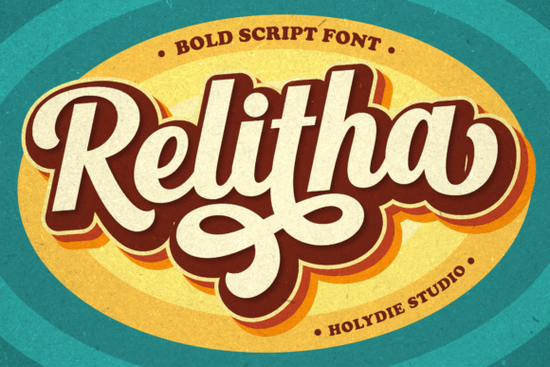
If you're working on a design that calls for bold, nostalgic vibes think 70s album covers, 80s diner signage, or groovy t-shirt prints you’ll want a typeface that captures that era without looking dated. That’s where Relitha Font comes in. It blends retro letterforms with confident, modern weight, making it ideal for projects that need personality and punch. Whether you’re designing logos, packaging, posters, or merch, Relitha delivers that vintage charm with clean execution.
What sets Relitha apart is how it balances authenticity with usability. Inspired by typography from the 1970s and 80s, it features slightly rounded terminals, subtle flares, and a sturdy structure that reads well even at smaller sizes. But its real strength lies in its versatility it doesn’t just look retro; it works across today’s most common creative formats, from digital mockups to screen-printed apparel.
Why designers love using Relitha for branding and merch
For small businesses and print-on-demand sellers, choosing a font that stands out but still feels familiar is key. Relitha hits that sweet spot. Its bold strokes and distinctive letter shapes make logos memorable, while its consistent rhythm keeps text readable on product labels or social media graphics.
Where Relitha really shines
This font isn’t just for throwback designs it’s practical for real-world applications:
- T-shirt and hoodie prints: Bold enough to read from a distance, with character details that hold up under screen printing.
- Branding for cafes, bars, or record stores: Evokes warmth and nostalgia without feeling kitschy.
- Event posters and flyers: Perfect for music festivals, retro nights, or vintage markets.
- Packaging for artisanal goods: Adds handmade charm to labels for coffee, hot sauce, or candles.
Unlike overly decorative script fonts such as those inspired by franchises like Star Wars Relitha maintains legibility while still expressing mood. And compared to outline-heavy options like Jersey Outline, it offers solid impact without relying on gimmicks.
How to get the most out of Relitha
Since Relitha includes extended glyphs, take a few minutes to explore its full character set before finalizing your design. Try swapping standard letters for alternates to give words unique rhythm especially useful for short phrases like brand names or taglines.
Also, pay attention to spacing. Retro fonts often have tighter letterfit, so you might need to adjust tracking slightly when using it in all-caps headlines. A little breathing room can prevent visual crowding while preserving the font’s energetic feel.
- ✅ Pair with neutral colors (mustard, olive, cream, navy) to enhance the vintage mood without overwhelming the viewer.
With its mix of era-specific style and functional design, Relitha gives creators an authentic yet adaptable tool for projects that need to feel both timeless and fresh. If your next design calls for a little groove, this font might be exactly what you’ve been looking for.